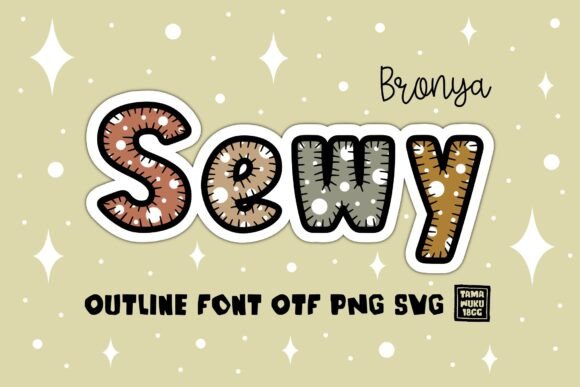
Bronya Sewy Font: Add a Fun Accent to Your Designs
Are you looking for a unique and playful font to elevate your designs? Look no further than Bronya Sewy, an outline display font that’s perfect for adding a fun accent to your projects. In this article, we’ll explore the features and benefits of Bronya Sewy, and how it can be used in a variety of design applications.
What is Bronya Sewy?
Bronya Sewy is a carefully crafted outline display font that’s designed to add a touch of playfulness and whimsy to your designs. Its unique outline style and bold lines make it perfect for creating eye-catching headlines, titles, and logos. Whether you’re a designer, crafter, or DIY enthusiast, Bronya Sewy is an excellent choice for anyone looking to add a fun and creative element to their work.
Key Features of Bronya Sewy
- Outline Display Font: Bronya Sewy is an outline font, which means it’s designed to be used as a display font, perfect for headlines, titles, and short text.
- Fun and Playful: The font has a playful and whimsical feel, making it perfect for designs that require a fun accent.
- Versatile: Bronya Sewy can be used in a variety of design applications, including book covers, coloring pages, posters, packaging, merchandise, and more.
- Easy to Read: Despite its playful nature, Bronya Sewy is easy to read, even at smaller sizes.
Design Applications for Bronya Sewy
Bronya Sewy is a versatile font that can be used in a wide range of design applications. Here are some ideas to get you started:
- Book Covers: Add a playful touch to your book covers with Bronya Sewy. It’s perfect for fiction, non-fiction, and children’s books.
- Coloring Pages: Use Bronya Sewy to create fun and colorful titles and headings for your coloring pages.
- Posters: Create eye-catching posters with Bronya Sewy. It’s perfect for advertising, promoting events, or showcasing your artwork.
- Packaging: Add a playful touch to your product packaging with Bronya Sewy. It’s perfect for food labels, product tags, and more.
- Merchandise: Use Bronya Sewy to create fun and playful designs for your merchandise, such as t-shirts, mugs, and tote bags.
- Logotype: Create a unique and memorable logotype with Bronya Sewy. It’s perfect for businesses, brands, and personal projects.
Tips for Using Bronya Sewy
Here are some tips for getting the most out of Bronya Sewy:
- Use it sparingly: Bronya Sewy is a display font, so use it sparingly to create emphasis and visual interest.
- Pair it with other fonts: Experiment with pairing Bronya Sewy with other fonts to create a unique and visually appealing combination.
- Experiment with colors: Bronya Sewy looks great in a variety of colors, so don’t be afraid to experiment and find the perfect color scheme for your design.
Bronya Sewy is a fun and playful outline display font that’s perfect for adding a creative element to your designs. With its unique outline style, bold lines, and easy-to-read design, it’s suitable for a wide range of design applications. Whether you’re a designer, crafter, or DIY enthusiast, Bronya Sewy is an excellent choice for anyone looking to add a fun accent to their work. So why not give it a try and see how Bronya Sewy can elevate your designs?